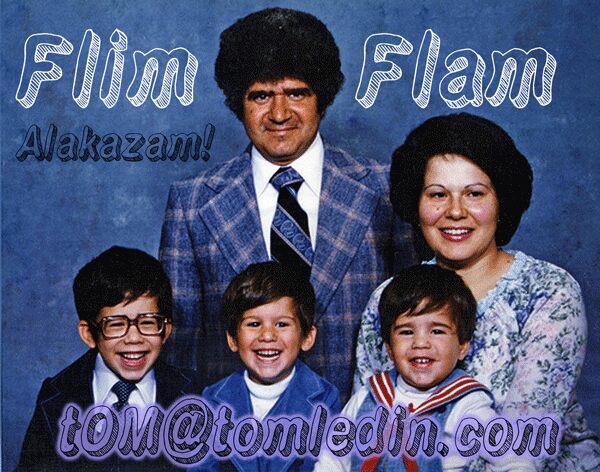
Flim-Flam by Tom Ledin is a free cartoon display font with loose, inflated letters, uneven outlines, and hand-drawn hatching tucked along one side of the strokes. The changing stroke widths keep the forms lively and elastic.
Designers working for children's entertainment or comic-minded audiences can use its scribbled dimension in game graphics, party posters, and playful packaging. The same striped shading can turn lettering into part of an illustration, making it especially apt for novelty candy branding and humorous youth magazine covers.